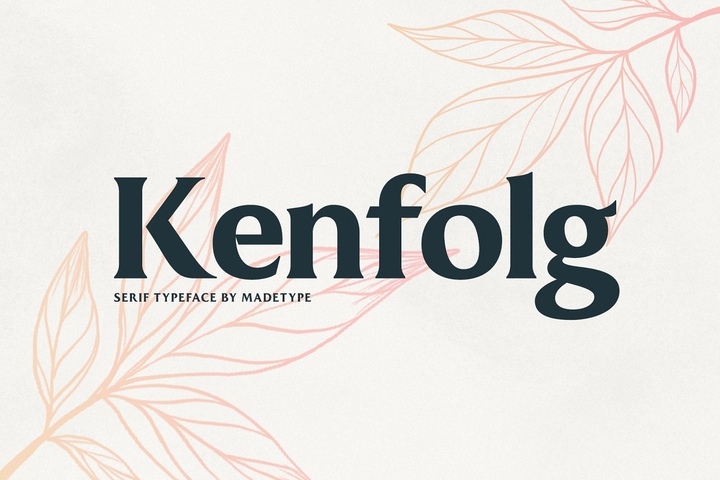
MADE Kenfolg Font
MADE Kenfolg Font is perfect for contemporary brand identities, modern tech company logos, innovative startup branding, progressive corporate communications, cutting-edge product packaging, sleek architectural signage, forward-thinking marketing campaigns, creative agency materials, dynamic digital interfaces, and sophisticated professional presentations.
What makes MADE Kenfolg Font so exciting is its remarkable ability to embody contemporary innovation and modern professional excellence through letterforms that seem engineered for the future of digital communication while maintaining timeless sophisticated appeal. This progressive typeface captures the essence of modern design leadership and technological advancement with characters that radiate confidence, clarity, and the kind of forward-thinking aesthetic that defines successful contemporary brands. The font's innovative design elements perfectly balance cutting-edge modernity with professional reliability, creating an indispensable tool that communicates design intelligence, professional competence, and contemporary authority, making it essential for organizations positioning themselves at the forefront of their industries and modern business evolution.
MADE Kenfolg Font comes in multiple font families including Regular, Bold, Light, Italic, Bold Italic, Modern, Progressive, and Contemporary variations. Each family member maintains the core innovative characteristics while offering different sophistication levels and stylistic approaches to suit various modern branding and professional design requirements.
The contemporary precision in MADE Kenfolg Font makes it particularly effective for technology companies and forward-thinking organizations where conveying modern expertise and professional innovation is crucial for competitive advantage and market positioning. Its versatile letterforms work exceptionally well across all contemporary applications, from digital interfaces to corporate headquarters signage, maintaining consistent modern impact while providing maximum flexibility for diverse professional needs.
Modern branding professionals recognize how MADE Kenfolg Font transforms ordinary business communications into powerful statements of contemporary excellence and professional sophistication. The typeface's comprehensive character set includes extensive international language support, modern symbols, and advanced typographic features that accommodate complex contemporary branding requirements and global professional market applications.
For creative professionals serving technology innovators, progressive startups, and contemporary professional services, MADE Kenfolg Font serves as the ultimate foundation for establishing memorable visual identities that capture the essential qualities of modern sophistication, professional innovation, and contemporary excellence that define successful brands leading the evolution of modern business and professional communication in competitive global markets where both credibility and innovation determine success.